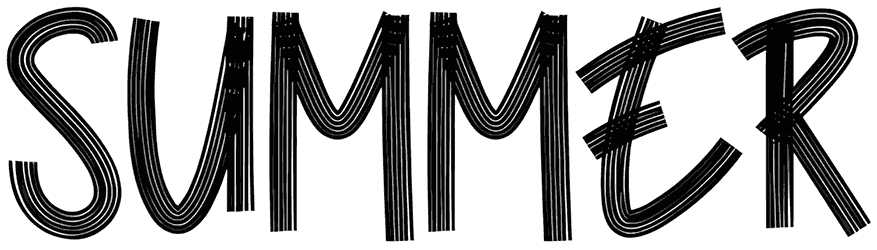
Summer Font
Summer is an ideal script font for your summer festival this year, which will create a sense of freshness in your designs. This summer font features strong lettering with plenty of inked lines that will create a memorable and trendy style in your writing.
So if you want a powerful combination of geometry and human handwriting without lowercase letters, implement Summer on your headlines, web pages, magazine covers, and print posters now.